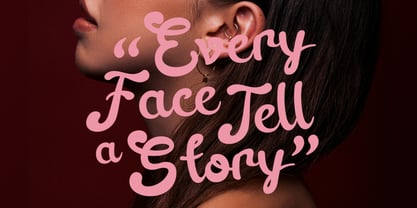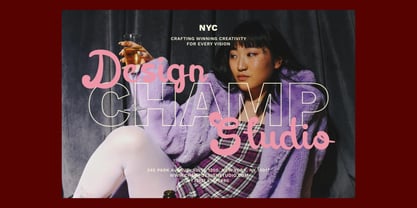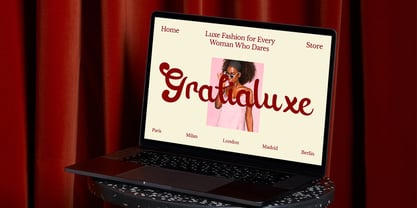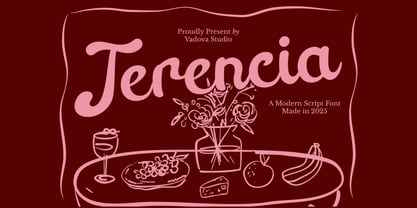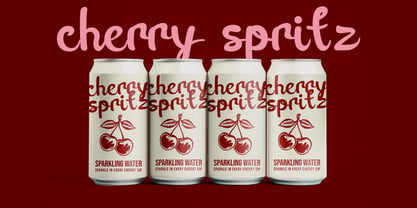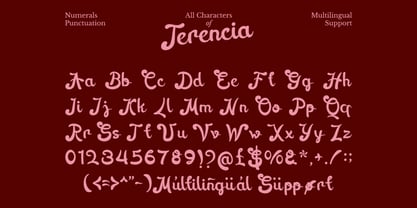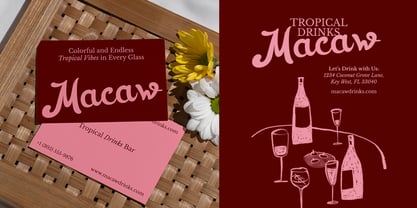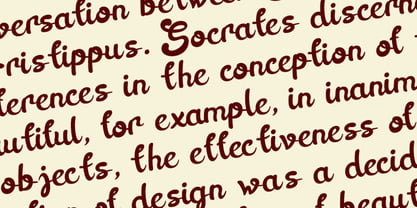
Terencia
Elevate your designs with Terencia Modern Script Font, a modern script typeface that embodies elegance, warmth, and sophistication. Inspired by handwritten calligraphy, its smooth, flowing curves and delicate letterforms make it perfect for branding, wedding invitations, product packaging, and editorial design. The soft yet expressive strokes give it a romantic and artistic charm, making it ideal for projects that require a touch of refinement and femininity. With its graceful presence and versatile appeal, Terencia adds a timeless beauty to any creative endeavor.
Main Features
* Uppercase & Lowercase characters
* Numeral & Punctuations